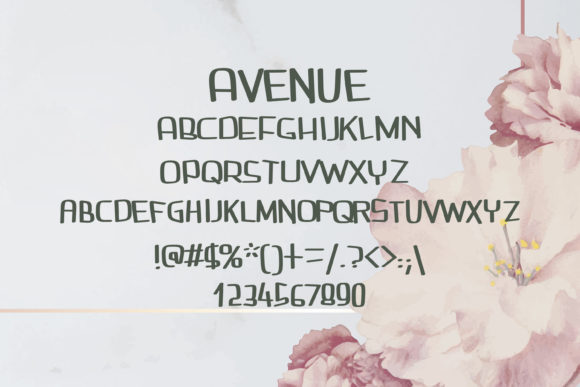
Avenue Font: Elevate Your Designs with a Modern, All-Caps Display Font
In the realm of typography, fonts play a pivotal role in shaping the visual identity of a design. Whether it’s for branding, advertising, web development, or crafting, selecting the right font can make all the difference. For those seeking a modern, all-caps display font that injects a playful yet sophisticated touch into their projects, Avenue Font emerges as an exceptional choice. Specifically crafted for contemporary design styles and applications, Avenue Font is poised to transform your designs with its unique flair.
The Essence of Avenue Font
Avenue Font is a modern, all-caps display font that embodies the spirit of contemporary design. Its clean lines, balanced proportions, and distinctive style make it an ideal selection for designers aiming to infuse their work with a fresh, modern aesthetic. Whether you’re working on branding projects, creating striking posters, or developing a unique display font for web or app development, Avenue Font offers the versatility and impact you need.
Key Features of Avenue Font
- Modern Aesthetic: Avenue Font boasts a sleek, modern design that aligns perfectly with current trends in graphic design and digital media.
- All-Caps Display: Its all-caps nature makes it highly legible and impactful, ideal for headlines, titles, and any design element where prominence is key.
- Playful yet Sophisticated: The font strikes a perfect balance between playfulness and sophistication, making it suitable for a wide range of projects, from youthful campaigns to more refined brand communications.
- Versatility: Avenue Font can be used across various platforms and mediums, including print (posters, flyers, logos) and digital (web design, mobile apps, social media graphics).
Applications of Avenue Font
The versatility of Avenue Font makes it suitable for a myriad of applications. Here are some of the most impactful uses:
- Branding Projects: Create a memorable brand identity with Avenue Font. Its modern and clean design makes it perfect for logos, letterheads, and packaging.
- Striking Posters: Make your posters stand out with Avenue Font. Whether it’s for an event, a product launch, or an awareness campaign, this font ensures your message grabs attention.
- Web and App Development: Enhance the user interface of your website or app with Avenue Font. Its readability on digital screens makes it an excellent choice for headings and titles.
- Crafting and DIY Projects: For crafters and DIY enthusiasts, Avenue Font can add a professional touch to handmade products, blogs, or social media content.
Why Choose Avenue Font?
In a sea of fonts, Avenue Font stands out for several reasons:
- Uniqueness: It offers a distinctive style that’s not overly common, helping your designs to stand out.
- Legibility: Despite its stylized nature, Avenue Font maintains high legibility, ensuring your message is conveyed effectively.
- Adaptability: It can be used in both digital and print media, offering flexibility across different projects.
Avenue Font is more than just a typeface; it’s a design statement. Its modern, all-caps display style makes it a powerful tool for designers and crafters looking to elevate their projects. With its unique blend of playfulness and sophistication, Avenue Font is poised to become a staple in your typography arsenal. Whether you’re aiming to create a bold brand identity, craft eye-catching posters, or enhance your digital projects, Avenue Font offers the perfect combination of style, versatility, and impact.
Embrace the modernity and creativity that Avenue Font brings to the table. Explore its potential, and discover how it can transform your designs into captivating visual experiences.